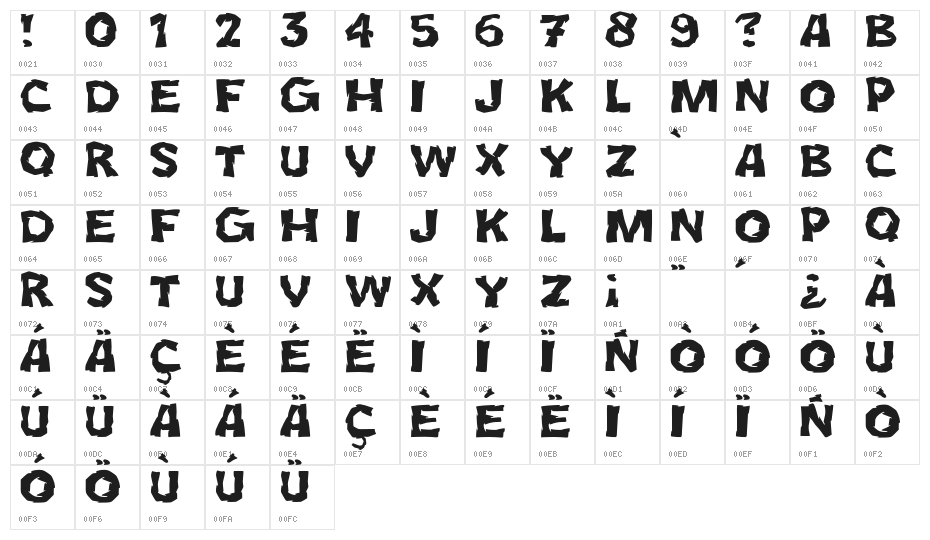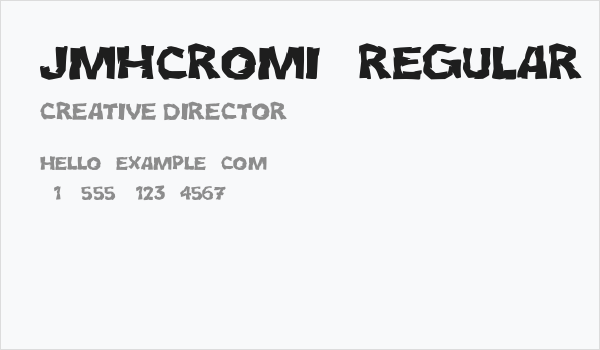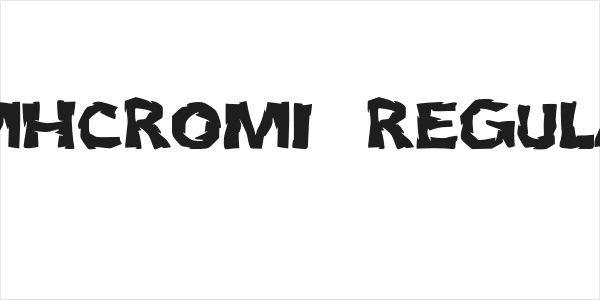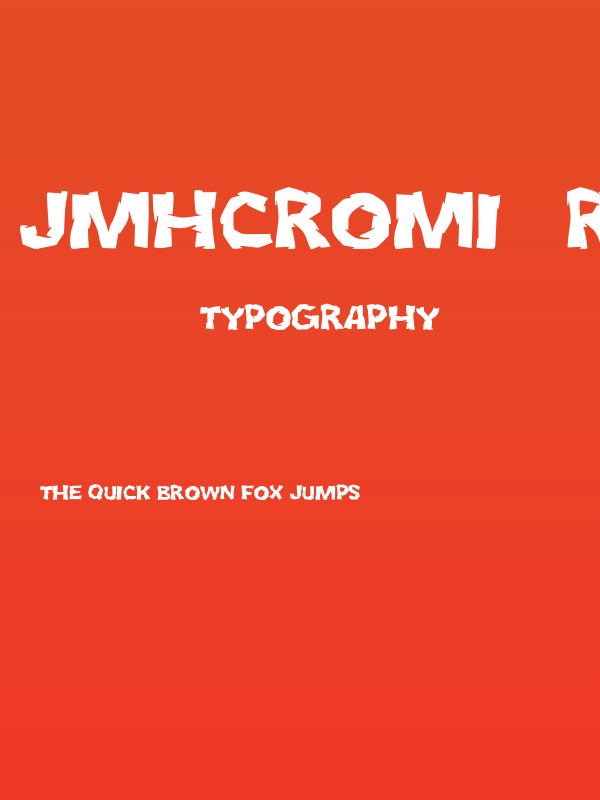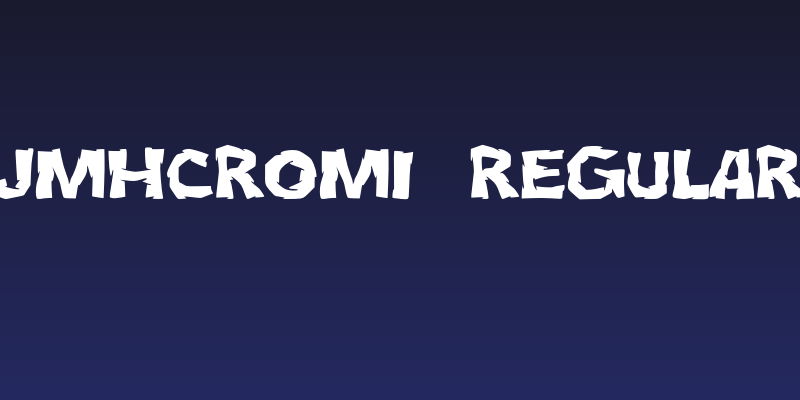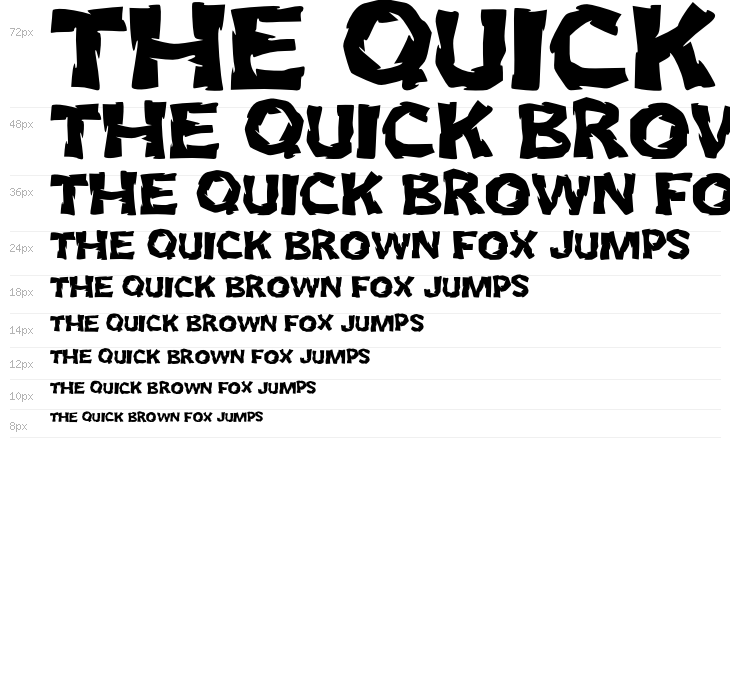
JMHCromI-Regular Font
This font features a bold and rugged design with sharp, angular edges and a distressed appearance. The characters are thick and heavy, giving a sense of strength and impact. The irregular shapes and rough texture create a dynamic and energetic feel, making it stand out in any design. The uppercase and lowercase letters maintain a consistent style, while the numbers and special characters complement the overall aesthetic. This font is ideal for projects that require a bold statement or a gritty, urban look.
Proposed ProjectsPerfect for posters, album covers, video game titles, and branding that requires a strong, edgy look.